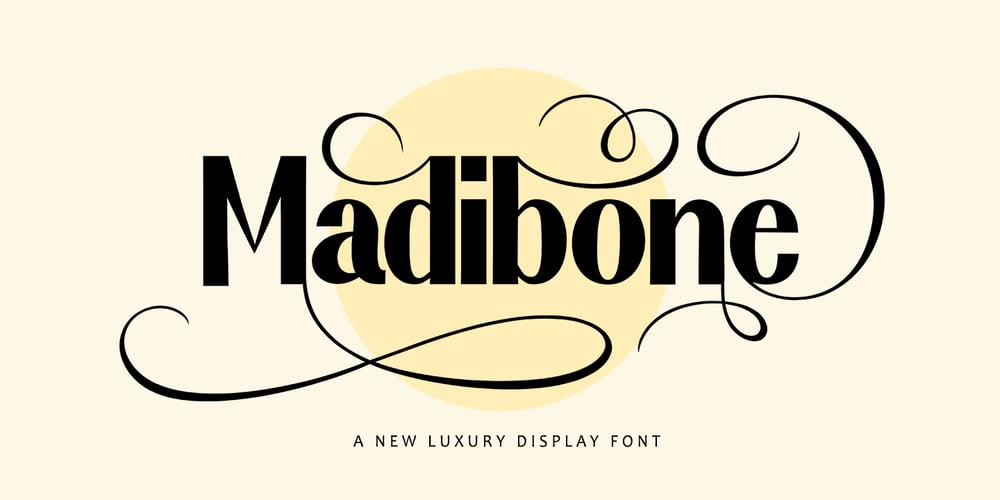
Madibone Font Family was designed by Wahi Din and published by Gold Type. Madibone contains 1 styles and family package options. Madibone is my new elegant serif font that will give your projects a touch of luxury and style. It’s perfect for logotypes, branding,monograms and wedding invitations, blog headlines, and more.Browse through all the previews and get as inspired as I was when creating this font.Please contact us if you have any questions, we are happy to help you!